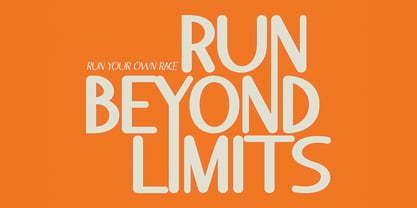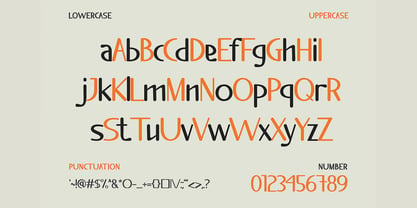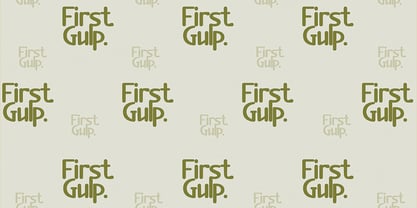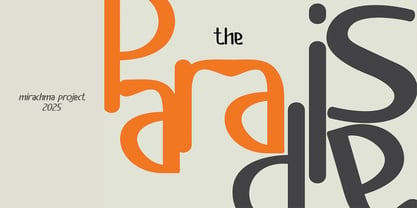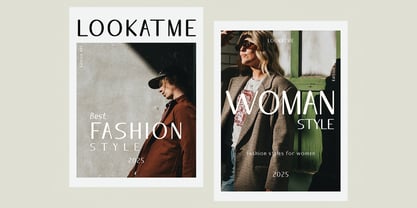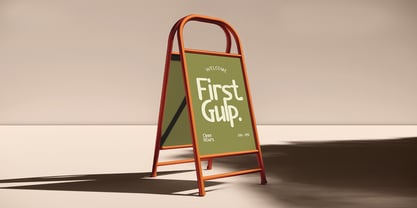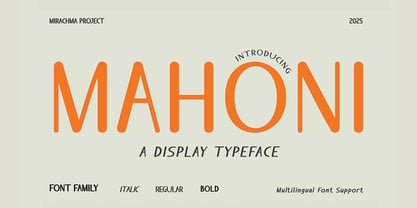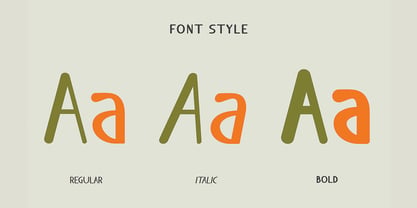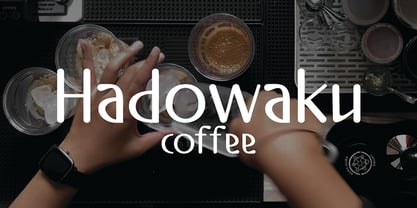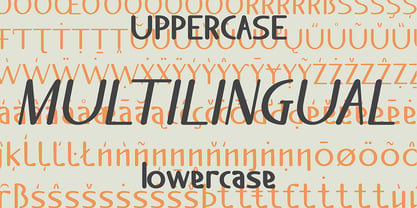
Mahoni
by Mirachma
The Mahoni Font Family was designed by Mira Rachma and published by Mirachma. Mahoni contains 3 styles and family package options. More about this family
MAHONI is a font inspired by beauty, elegance, luxury, and strength. MAHONI is a display typeface that can be used for titles, logos, and posters to attract attention and create a strong visual impact. However, this font looks simple and classic, so you can use it for various other visual purposes. What's Included: Uppercase & Lowercase Alphabets Numerals & Punctuation Font Family (Regular, Bold, Italic) Multilingual Font Support Note: Mockups & images featured in the preview image designs are for display purposes only, and not included in the download.
Designers: Mira Rachma
Foundry: Mirachma